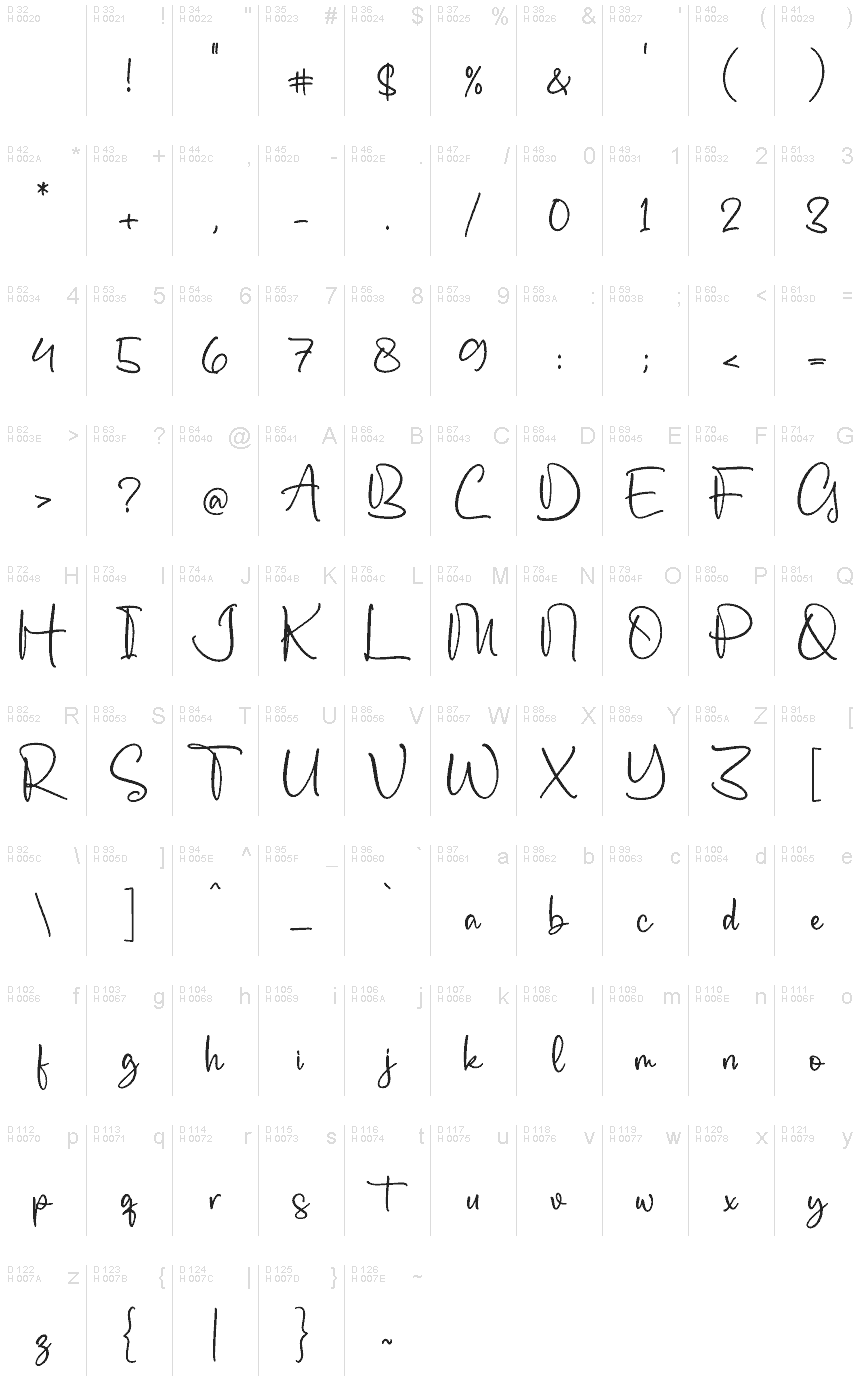
Austin Texas
You may be fascinated by how fonts can convey tone, mood, style and even personality with a simple line or an exquisite character, so we present today’s resource: Austin Texas.
This fun and stylish handwritten font by Perspectype studio offers a bold presence, and while it is perfect for signature designs, logos, social media posts and banners, it is also widely applicable with its modern and fresh look for invitation cards, branding purposes, labels, flyers, postcards, notebook and diary covers etc.